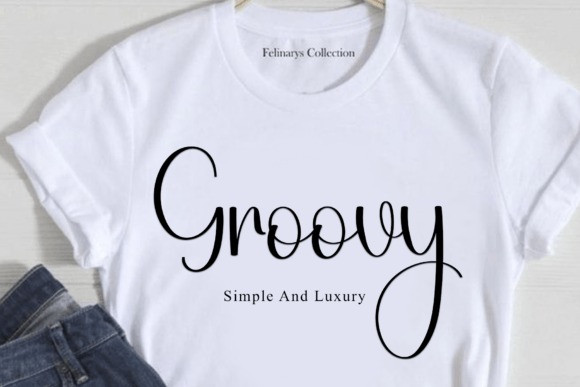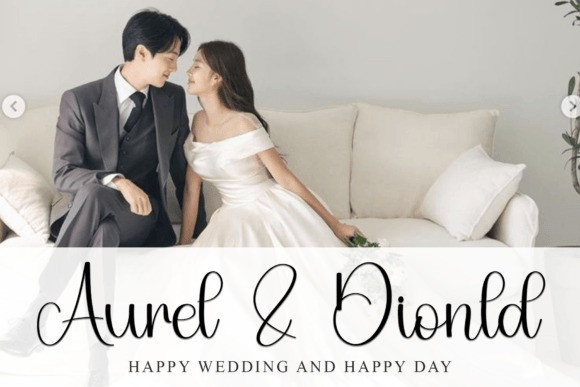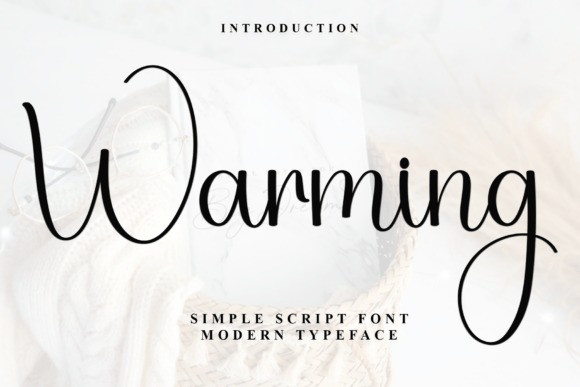
Warming Handwriting Font
Warming Handwriting Font is a stylish and incredibly elegant script font. It looks stunning on wedding invitations, thank you cards, quotes, greeting cards, logos, business cards and every other design which needs a handwritten touch.